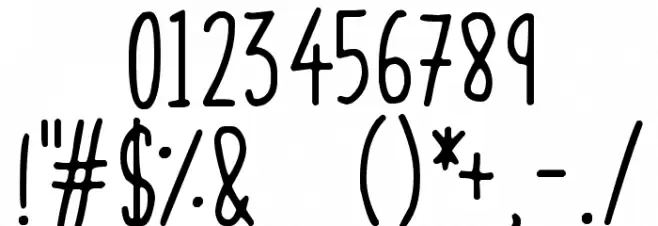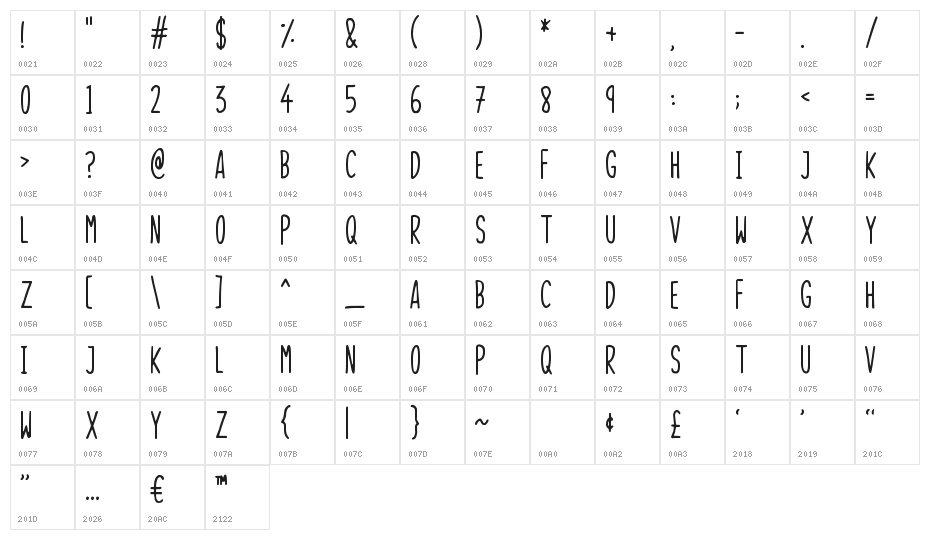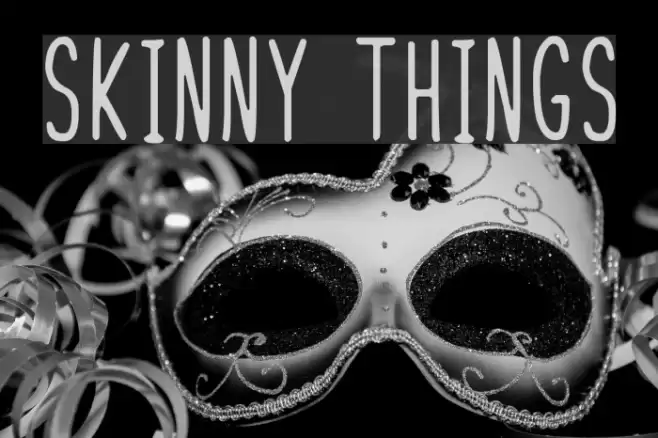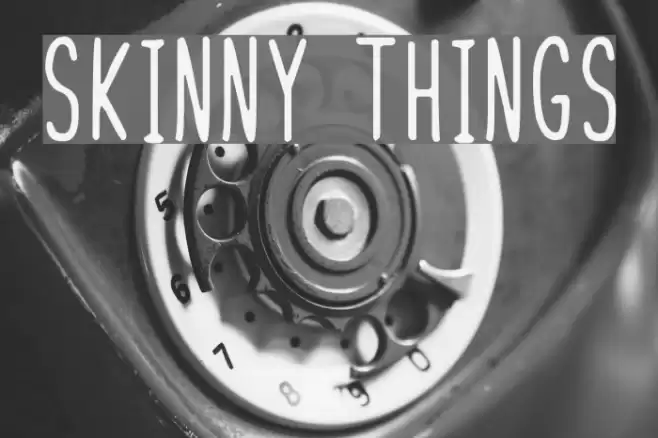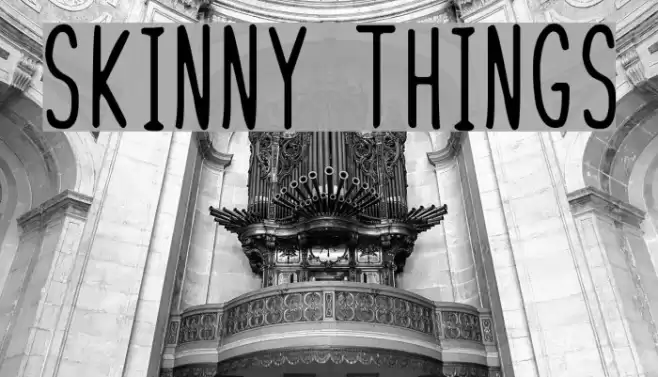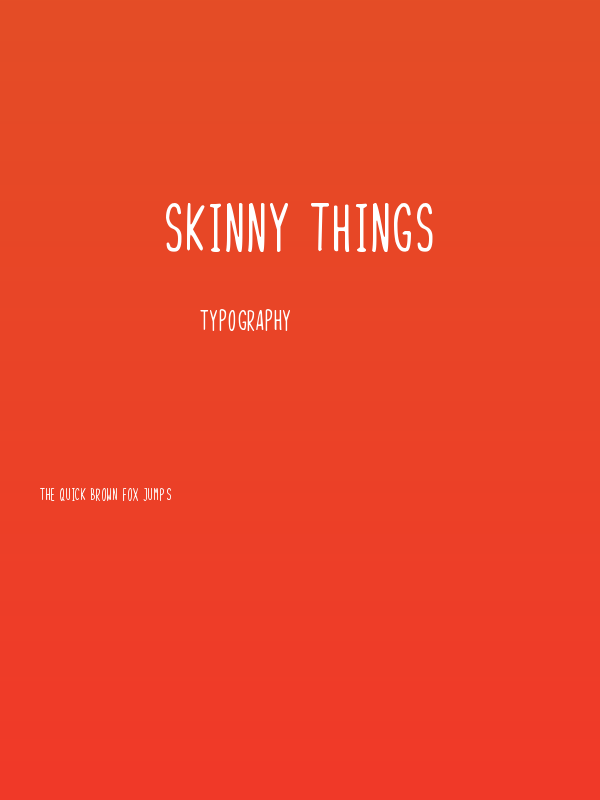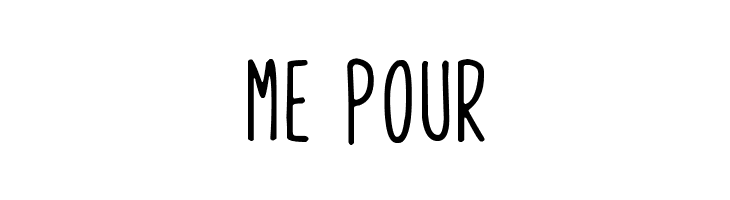
Skinny Things Font
Skinny Things Description
This font features a playful and casual handwritten style with tall, narrow letters. The characters are evenly spaced, giving a clean and organized appearance. The strokes are consistent in width, providing a uniform look across both uppercase and lowercase letters. The numbers and special characters maintain the same whimsical style, making it suitable for creative and informal projects. Its simplicity and legibility make it versatile for various design needs.
Overall StyleCasual
Use CaseHeadlines, Informal text, Creative projects
Proposed ProjectsIdeal for greeting cards, children's books, casual branding, and social media graphics.